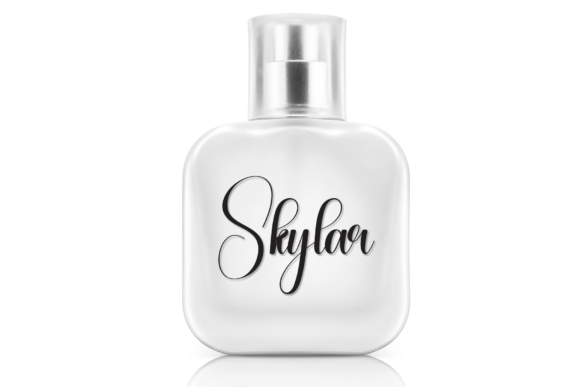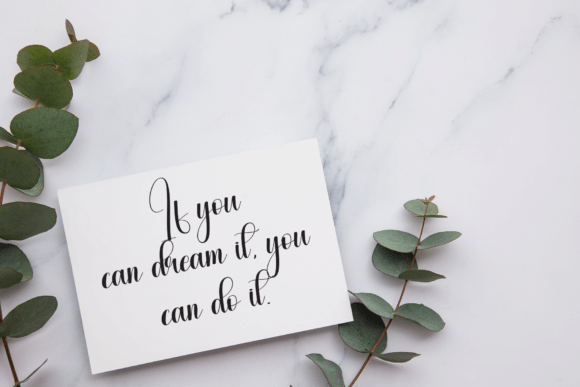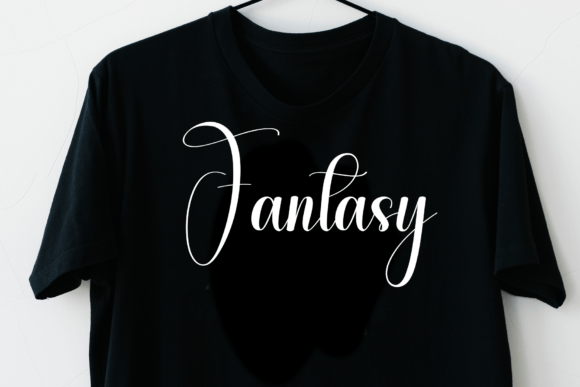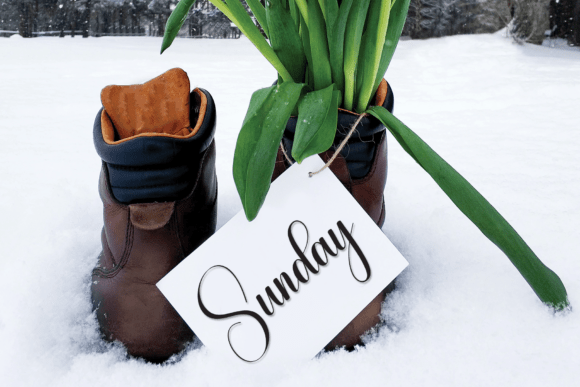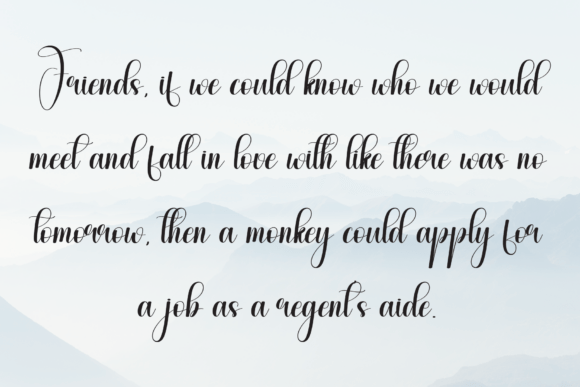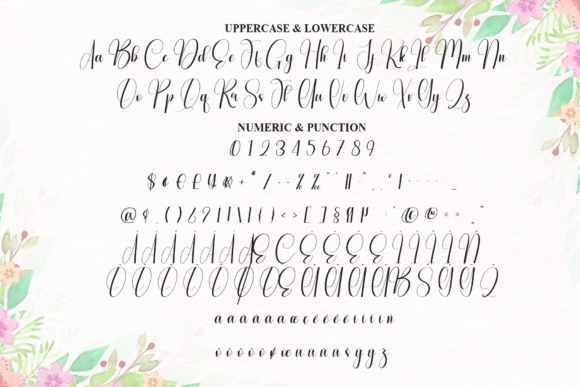
Introducing Christian Font: The Charming Handwritten Display Font
Are you looking for a font that can add a personal touch to your designs and make them stand out? Look no further than Christian Font, a delightful handwritten display font that is sure to captivate your audience. With its lovable and playful textures, Christian Font is the perfect companion for any design framework, especially wedding invitations, greeting cards, and more.
The Allure of Christian Font
Christian Font is a charming handwritten display font that is designed to bring a personable touch to your creations. Its unique charm lies in its ability to strike the perfect balance between lighthearted fun and artistic elegance. This font is perfect for designers and crafters who want to add a touch of whimsy and playfulness to their designs without compromising on sophistication.
Wedding invitations and greeting cards are special occasions that require a font that is both elegant and playful. Christian Font fits the bill perfectly. Its charming allure and delightful textures make it an ideal choice for wedding invitations, save-the-date cards, and other special occasion greetings. Whether you’re a designer or a crafter, Christian Font is sure to make your creations stand out.
Transform Your Designs into a Delightful Escapade
With Christian Font, you can transform your designs into a delightful escapade for your audience. This font is designed to bring a sense of fun and playfulness to your creations, making them more engaging and memorable. Whether you’re designing for a client or working on a personal project, Christian Font is sure to help you create something truly special.
Unique Charm and Character
Christian Font has a unique charm and character that sets it apart from other fonts. Its handwritten texture and playful feel make it perfect for designs that require a personal touch. This font is ideal for designers and crafters who want to add a touch of personality to their creations and make them more relatable to their audience.
Tips for Using Christian Font
Here are some tips for using Christian Font in your designs:
- Use Christian Font for headings and titles to add a touch of personality to your designs.
- Pair Christian Font with other fonts to create a unique and interesting contrast.
- Use Christian Font for wedding invitations, greeting cards, and other special occasion greetings.
In conclusion, Christian Font is a charming handwritten display font that is perfect for designers and crafters who want to add a personal touch to their creations. Its unique charm, playful texture, and artistic elegance make it an ideal choice for wedding invitations, greeting cards, and other special occasion greetings. With Christian Font, you can transform your designs into a delightful escapade for your audience and make them more engaging and memorable.